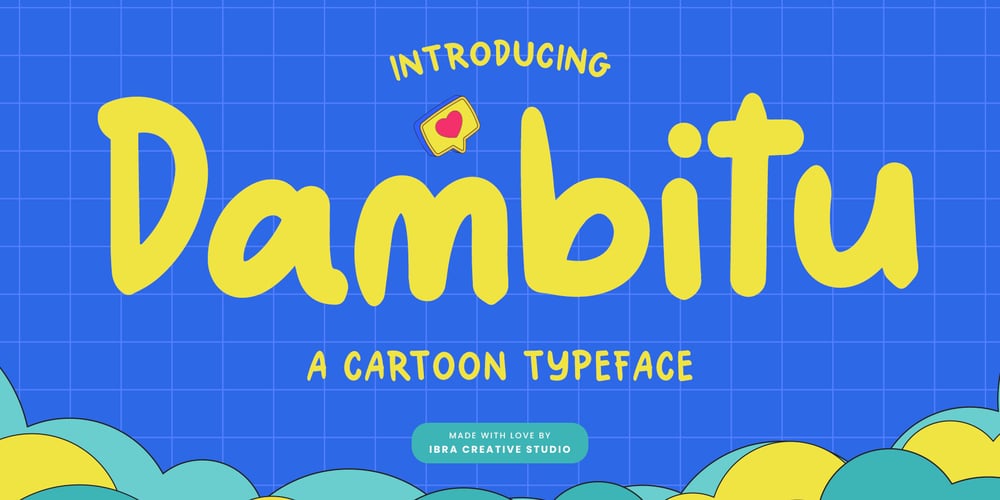
Dambitu
Dambitu font
Dambitu Font Family was designed by Roisatul Azizah and published by IbraCreative. Dambitu contains 1 styles and family package options. Dambitu – A Cartoon TypefaceDambitu, a whimsical cartoon typeface, bursts with playful exuberance and animated charm. Each letter is a vibrant character in its own right, showcasing exaggerated curves and lively strokes that dance across the page with a sense of delightful mischief. The font’s design embraces a playful spirit, reminiscent of hand-drawn cartoons, making it a perfect choice for projects that seek to infuse a sense of humor, cheerfulness, and a touch of childhood nostalgia. Dambitu is not merely a typeface; it’s a visual storyteller, ready to add a dose of animated personality to any design, be it comic strips, children’s books, or playful branding endeavors. Dambitu is perfect for branding projects, logo, wedding designs, social media posts, advertisements, product packaging, product designs, label, photography, watermark, invitation, stationery, game, fashion and any projects.Fonts include multilingual support for; Afrikaans, Albanian, Czech, Danish, Dutch, English, Estonian, Finnish, French, German, Hungarian, Italian, Latvian, Lithuanian, Norwegian, Polish, Portuguese, Slovak, Slovenian, Spanish, Swedish.